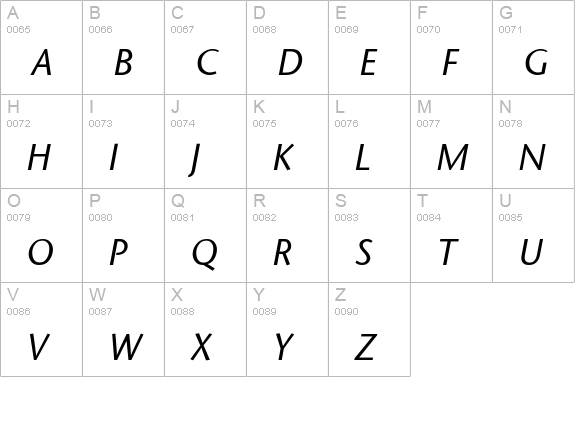
SapirSansItalic Font Details
SapirSansItalic font is a sleek and stylish typeface that adds a touch of elegance to any design. Its unique italicized style exudes sophistication and modernity, making it perfect for a wide range of creative projects. With its smooth curves and graceful letterforms, SapirSansItalic font effortlessly captures attention and creates a sense of fluidity. Whether used for headlines, branding, or body text, this font brings a refined and polished look to any design. One of the remarkable features of SapirSansItalic font is that it is available for free. This means that you can easily add this exceptional typeface to your collection without spending a penny. To download the font, simply visit FontsMarket.com, a reliable and trusted source for high-quality fonts. Ideal for both print and digital media, SapirSansItalic font ensures legibility and readability even at smaller sizes, making it a versatile choice for various projects. Its italicized form adds a touch of emphasis and elegance, allowing your words to stand out and leave a lasting impression. Whether you are designing a logo, creating a magazine layout, or crafting an elegant invitation, SapirSansItalic font offers the perfect balance of style and functionality. Its clean and modern aesthetic, combined with its italicized flair, sets it apart from other typefaces, giving your designs a touch of sophistication and refinement. Download SapirSansItalic font for free at FontsMarket.com and elevate your designs with its elegant and stylish charm. Let this font be the perfect tool to express your creativity and bring your ideas to life with a touch of class.